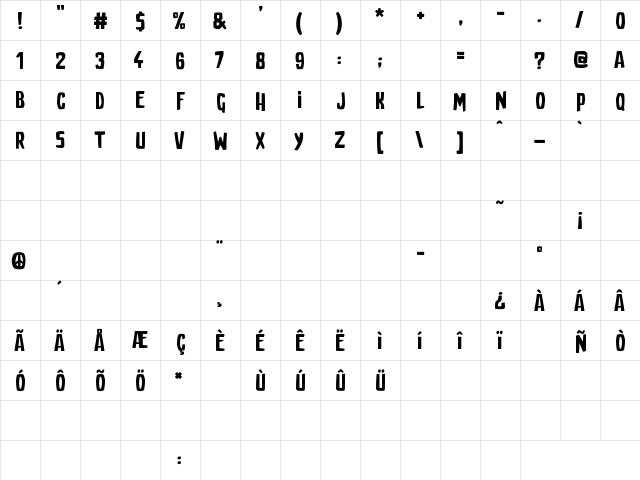
Give Peace a Chance Regular
Design Context for Give Peace a Chance Typeface
Give Peace a Chance takes a measured approach to typography — its balanced proportions and neutral character make it a reliable workhorse for both digital and print work.